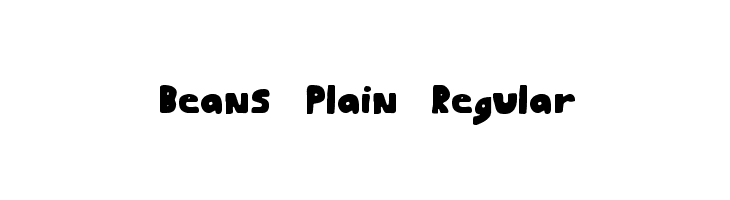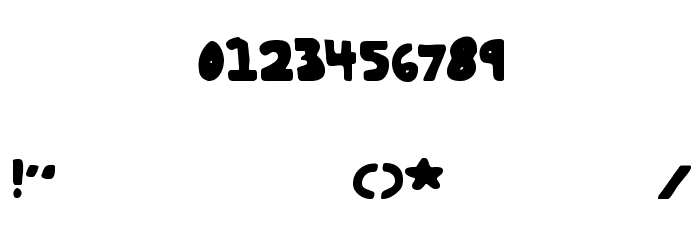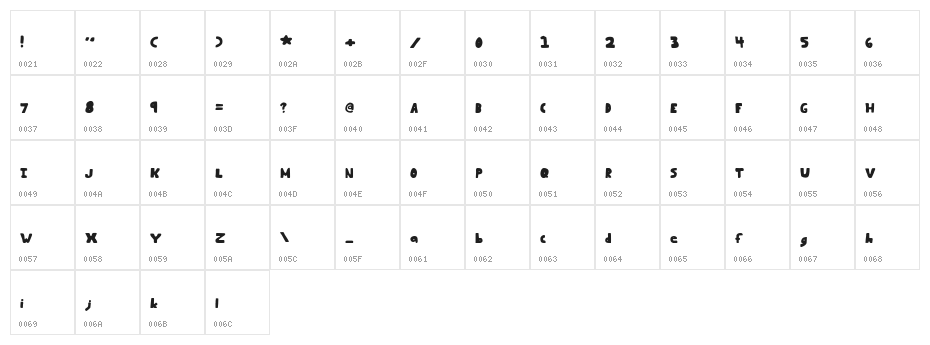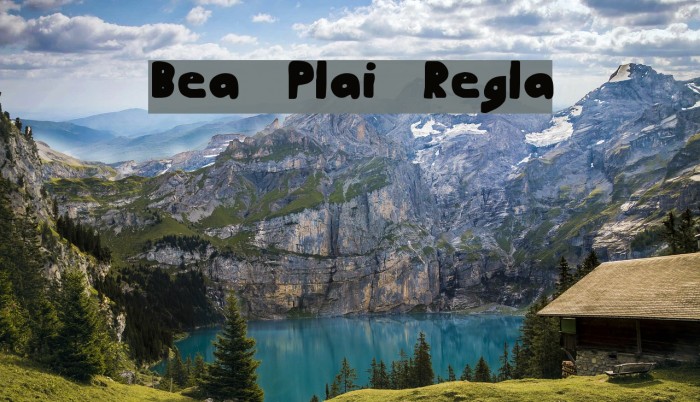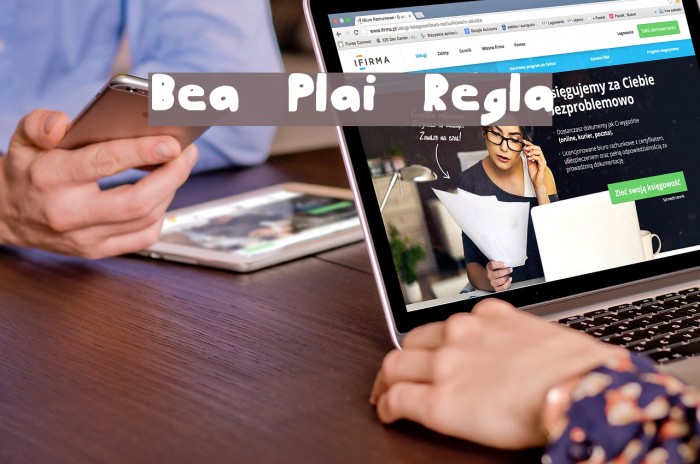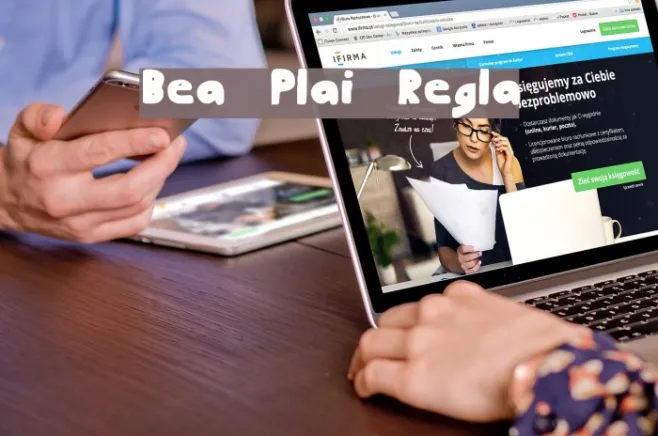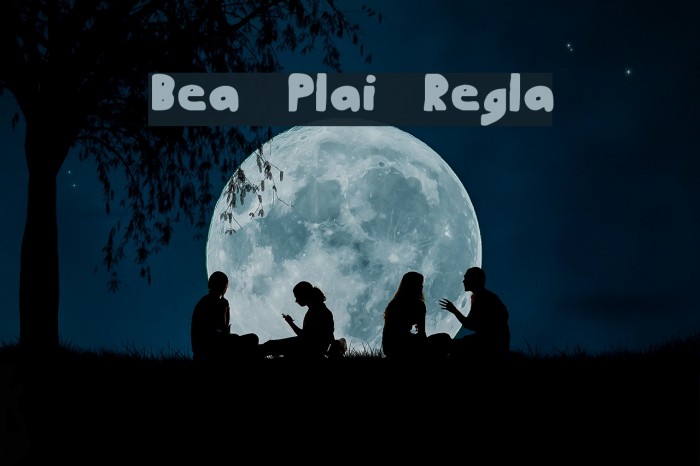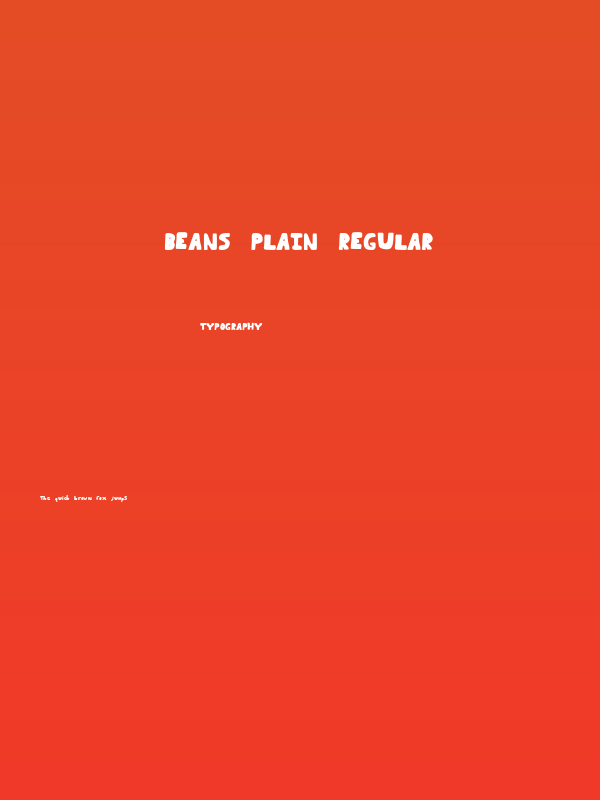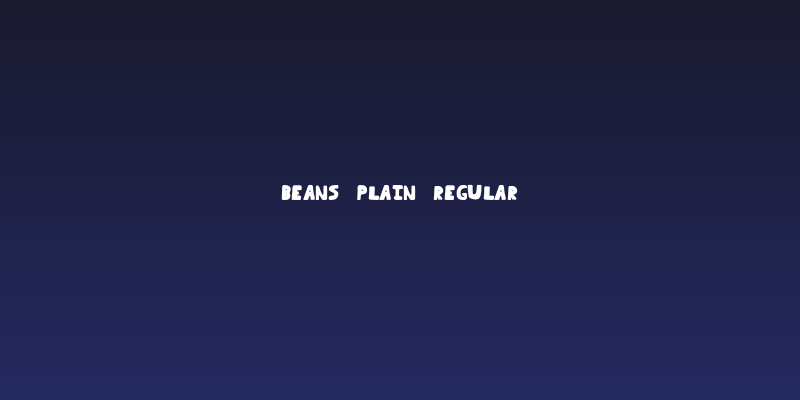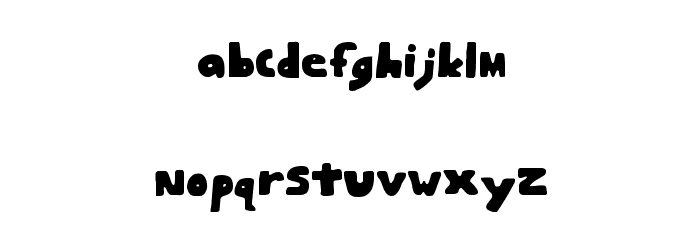
Beans Plain Regular Font
Beans Plain Regular Description
This playful and bold font features rounded, irregular shapes that give it a whimsical and friendly appearance. The characters are thick and slightly uneven, adding a hand-drawn feel that is both approachable and fun. The uppercase and lowercase letters maintain a consistent style, with a noticeable bounce and varied baseline that enhances its casual vibe. The numbers and special characters follow the same playful design, making it suitable for creative projects. Its unique style is perfect for capturing attention and conveying a sense of joy and creativity.